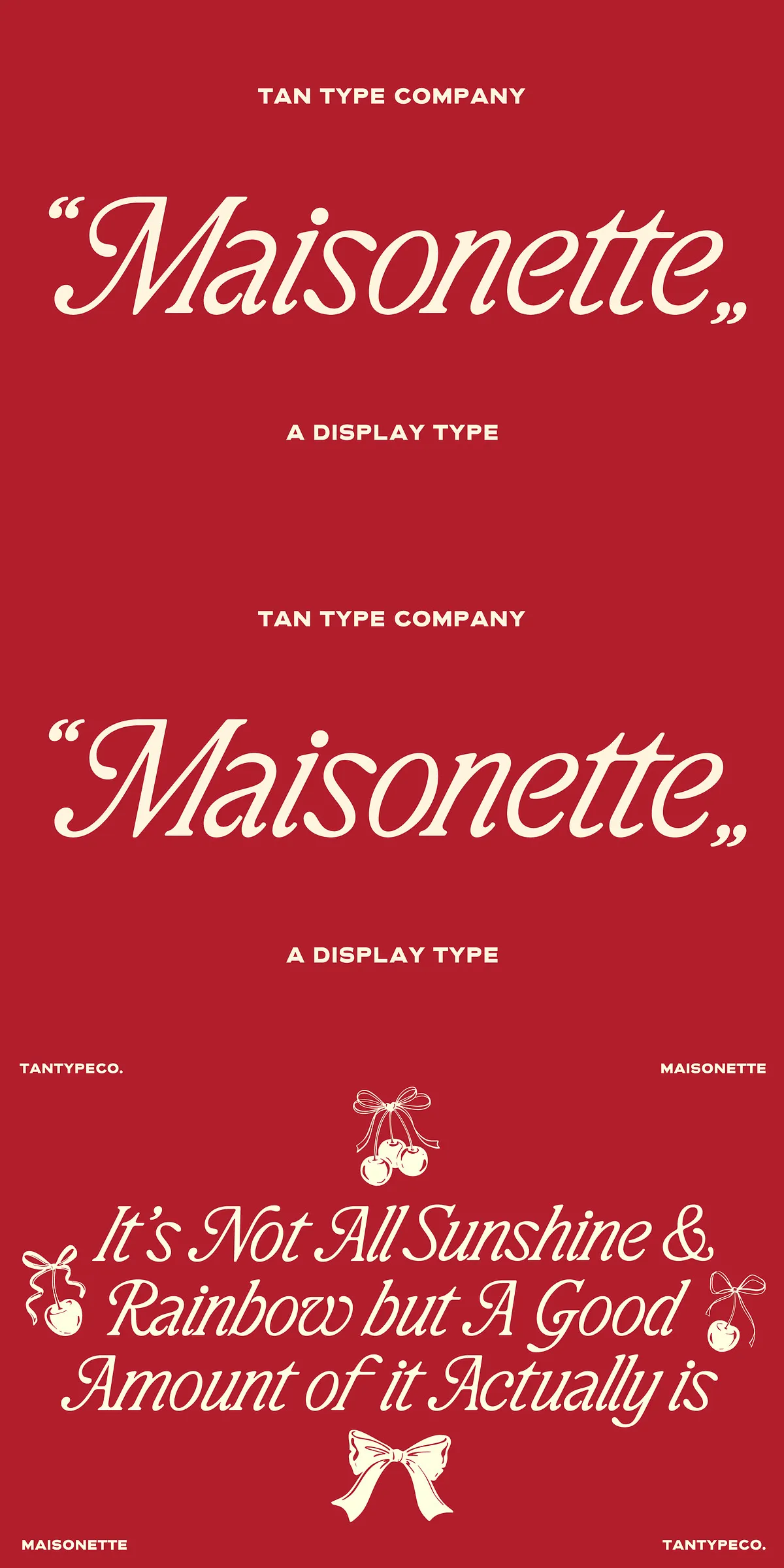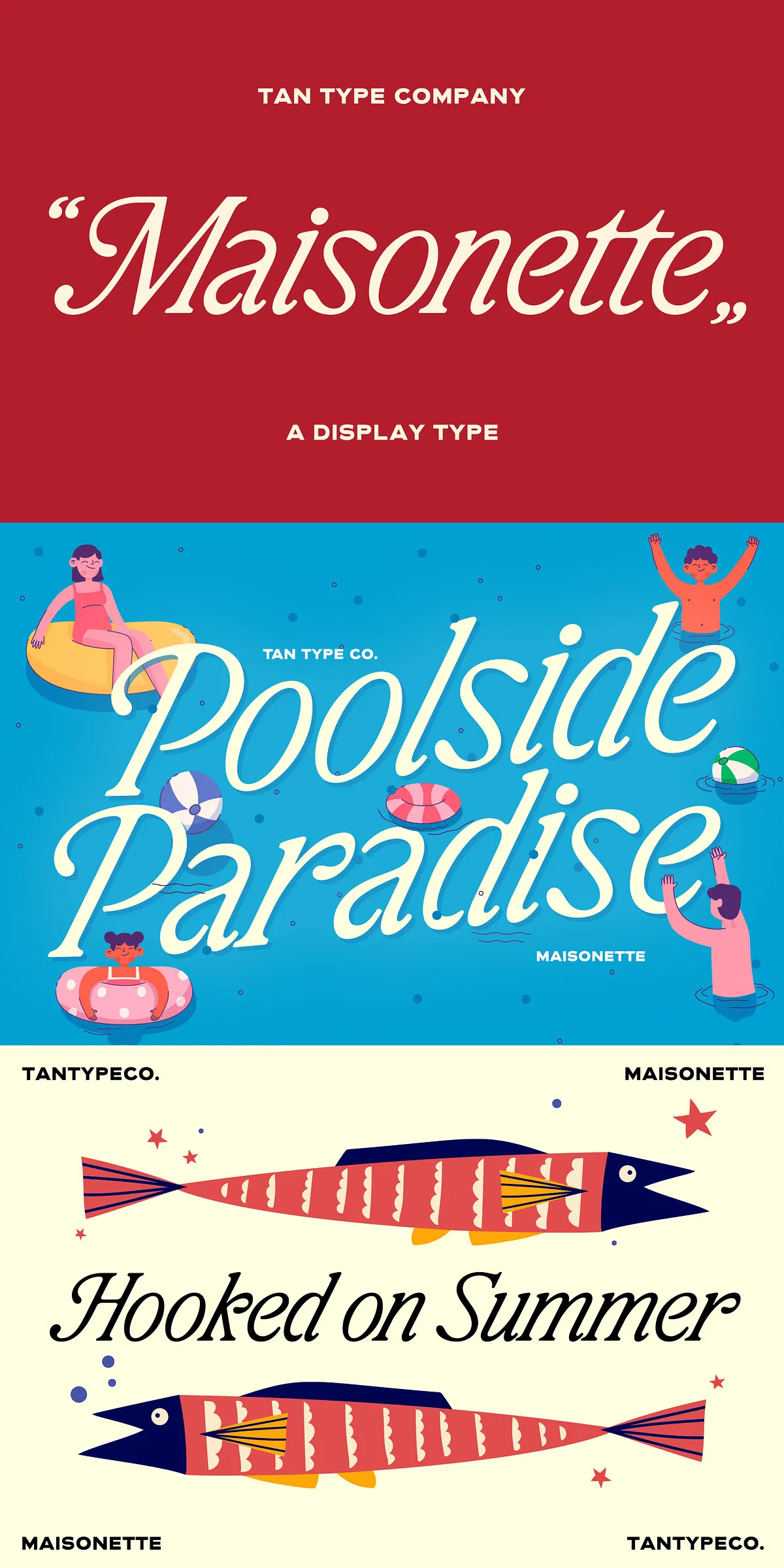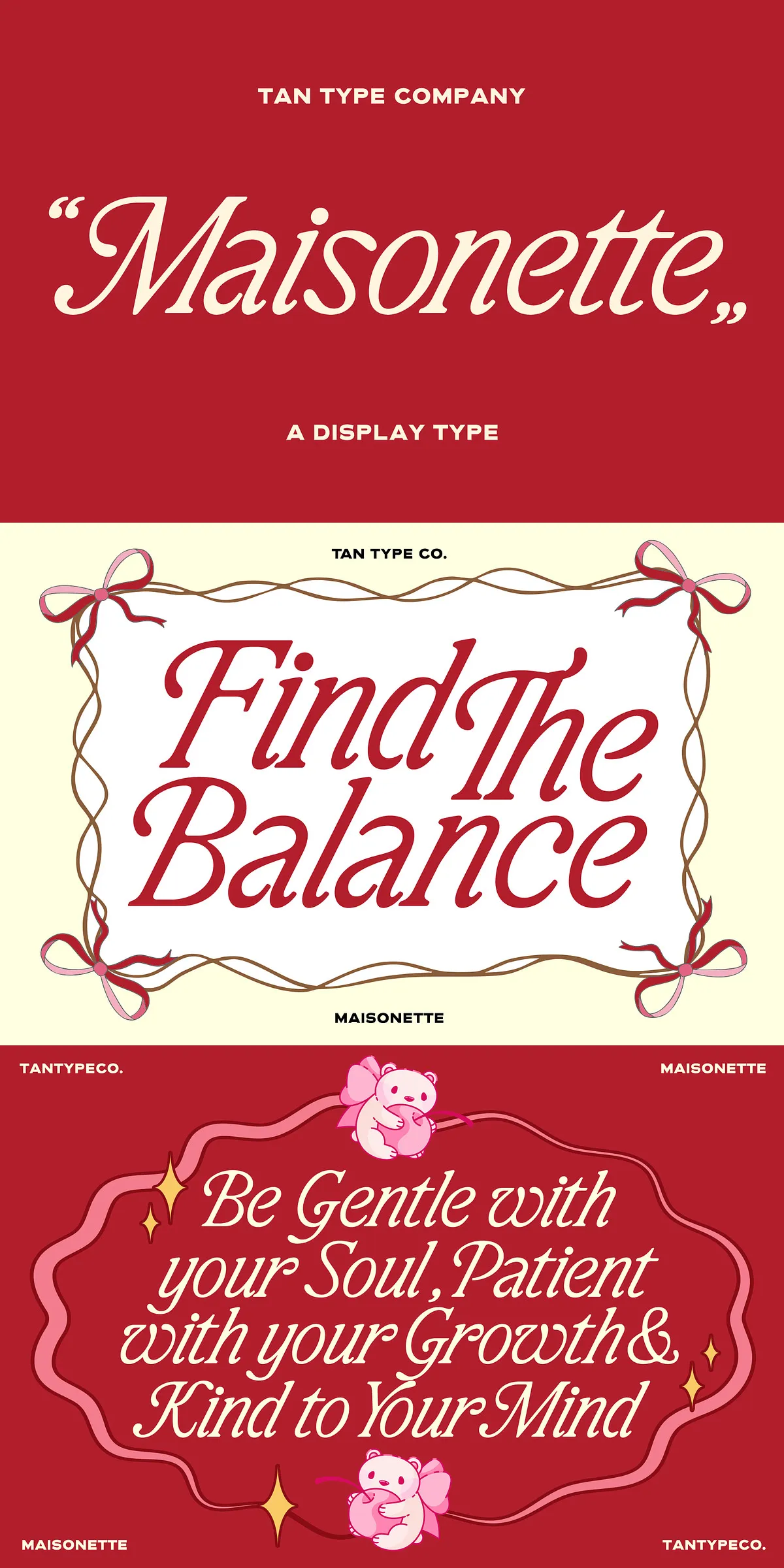
TAN-Maisonette channels the quiet charm of classic printed ephemera and the refined structures of vintage book type. The design pairs crisp, purposeful serifs with soft, flowing curves to create letterforms that feel both historic and fresh. Each character emphasizes clarity and rhythm, ensuring headlines command attention while longer passages remain readable. Use TAN-Maisonette to give projects a literary tone that still performs in modern layouts.
Distinctive italic style that adds movement and personality
The italic companion in TAN-Maisonette brings graceful motion and subtle warmth to your typography. It features elegant swashes and slightly condensed proportions that create a romantic, handwritten feeling without sacrificing legibility. Apply the italic for pull quotes, subheads, and expressive logotypes to introduce a narrative quality to editorial spreads, book covers, and invitation suites.
Ready for branding packaging and editorial design
TAN-Maisonette adapts easily across a wide range of applications. Designers will find it particularly effective for luxury branding, boutique packaging, wedding stationery, beauty product labels, and magazine features. The typeface reads impressively at large display sizes for covers and hero headlines, and it maintains tonal consistency on product labels and social media imagery.
Comprehensive feature set built for professional workflows
We equip TAN-Maisonette with production-ready features that streamline design work. The family includes well-tuned kerning and OpenType features such as contextual alternates, ligatures, and small caps where appropriate. These tools let you refine word shapes, craft bespoke logotypes, and maintain typographic rhythm across composed layouts. Activate OpenType features in applications that support them to unlock the full expressive potential of the family.
How to use TAN-Maisonette for maximum impact
Apply TAN-Maisonette boldly in headlines and logotypes to let its high-contrast features define the tone. Use italics to add personality and break visual monotony in editorial layouts. Pair the family with a neutral sans-serif for body copy when you need extended reading while preserving a refined headline voice. Increase tracking slightly on display lines to reveal serif nuances and maintain comfortable reading rhythm at large sizes.